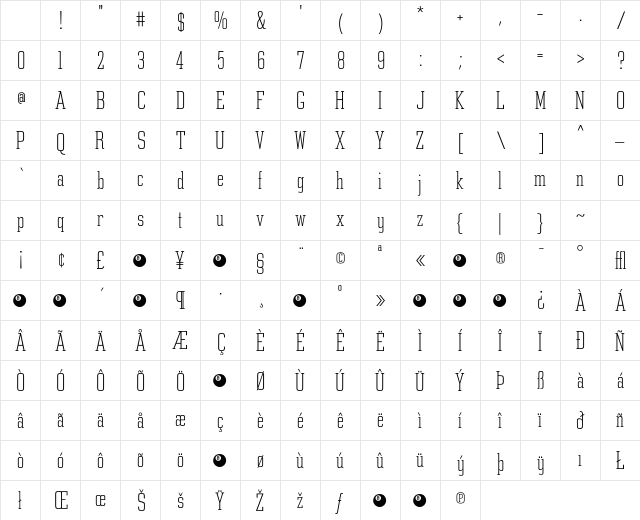
Constructa is a composed and adaptable typeface that performs quietly and consistently across a wide range of design contexts. Its slender proportions lend an understated elegance to any composition.